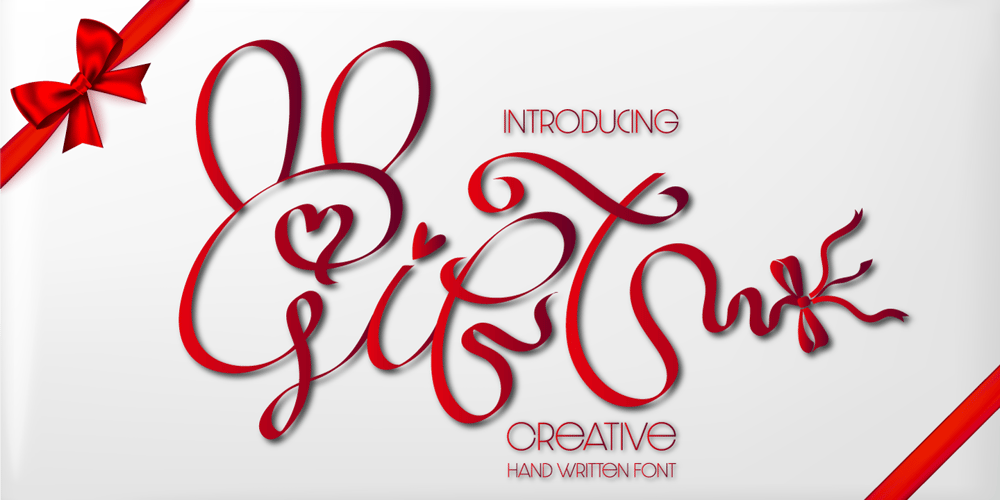
Gift Font Family was designed by Ake Thanantreesak and published by Ake. Gift contains 1 styles and family package options. Gift feels equally charming and elegant. It looks stunning on wedding invitations, thank you cards, quotes, greeting cards, logos, business cards and every other design which needs a handwritten touch.This font is PUA encoded which means you can access all of the glyphs and swashes with ease!